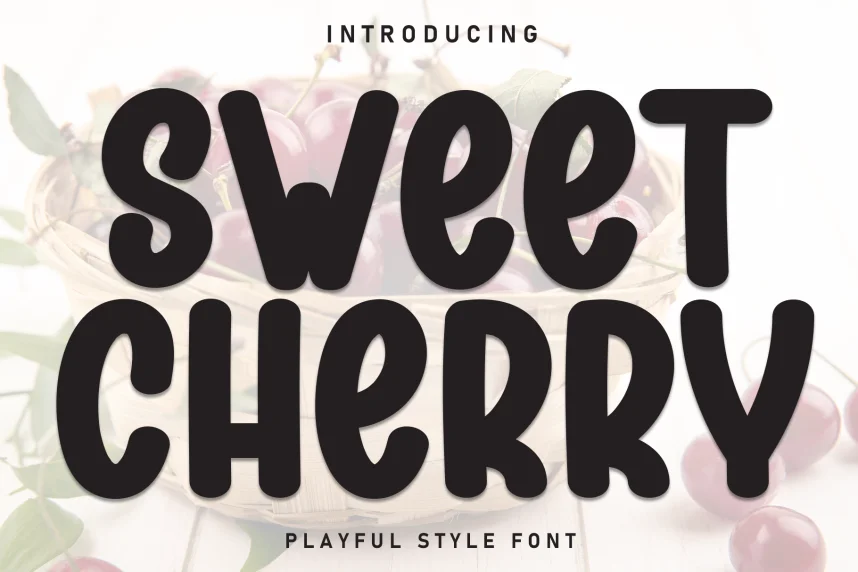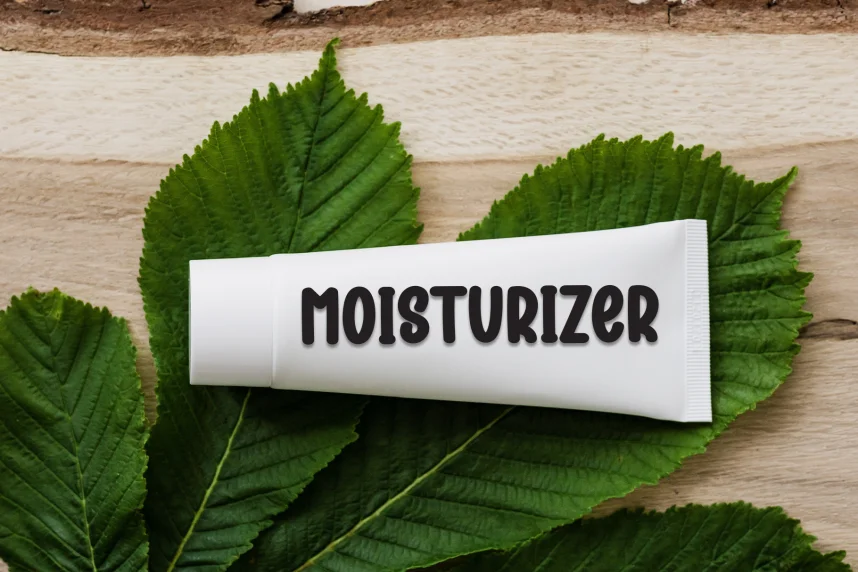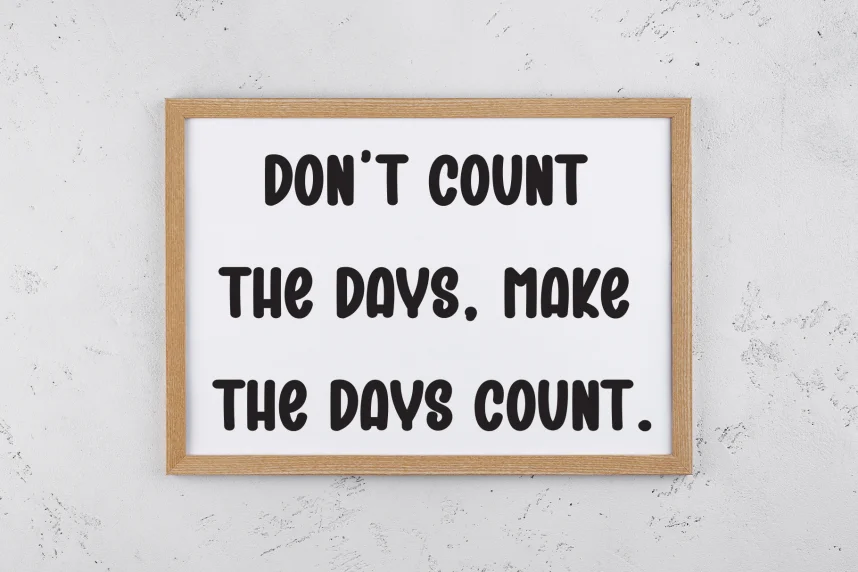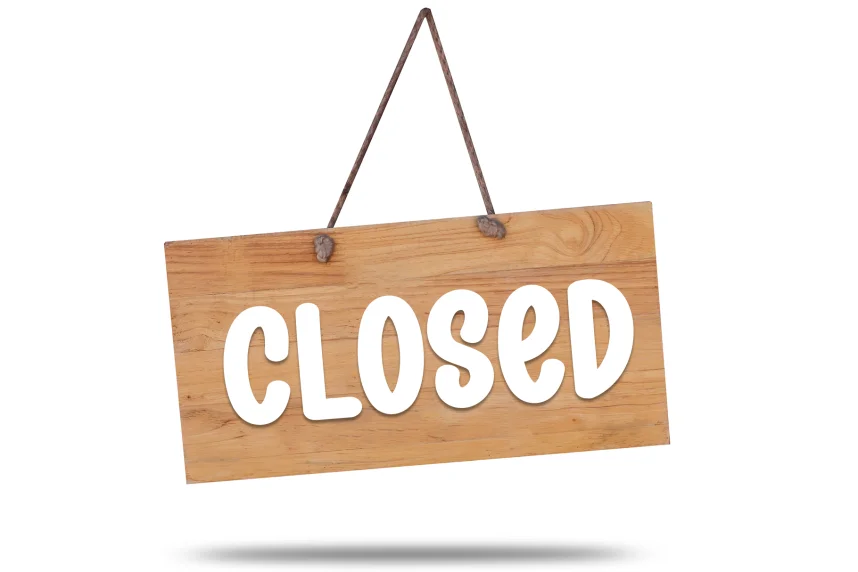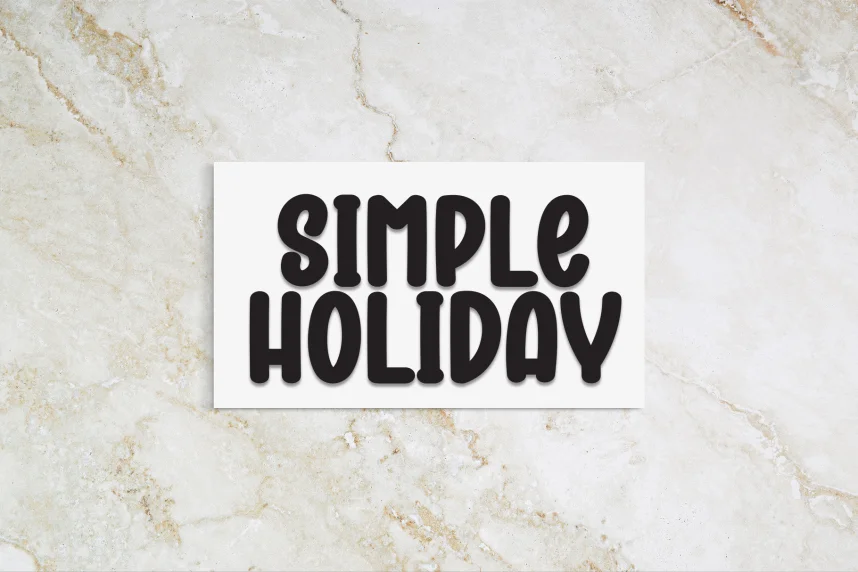
Sweet Cherry Playful Style Font helps designers add a fun, youthful vibe to their projects while ensuring that the text remains clear and accessible. Its playful style makes it ideal for projects aimed at younger audiences.
Sweet Cherry is a handwritten script font with rounded letterforms, lively curves, and unique swashes. The font mimics casual handwriting, creating a personal touch while keeping text readable in short and medium sizes.